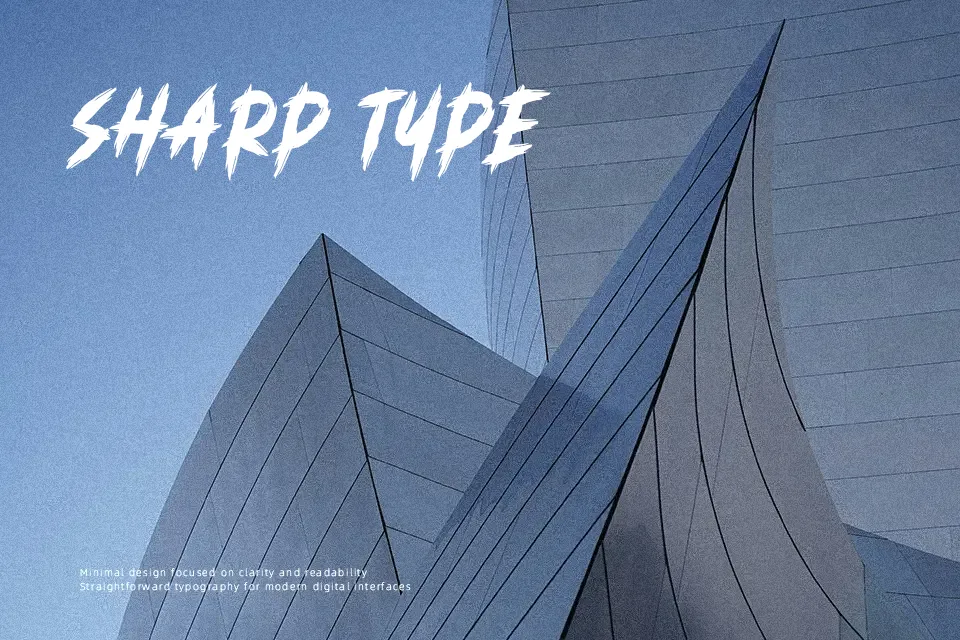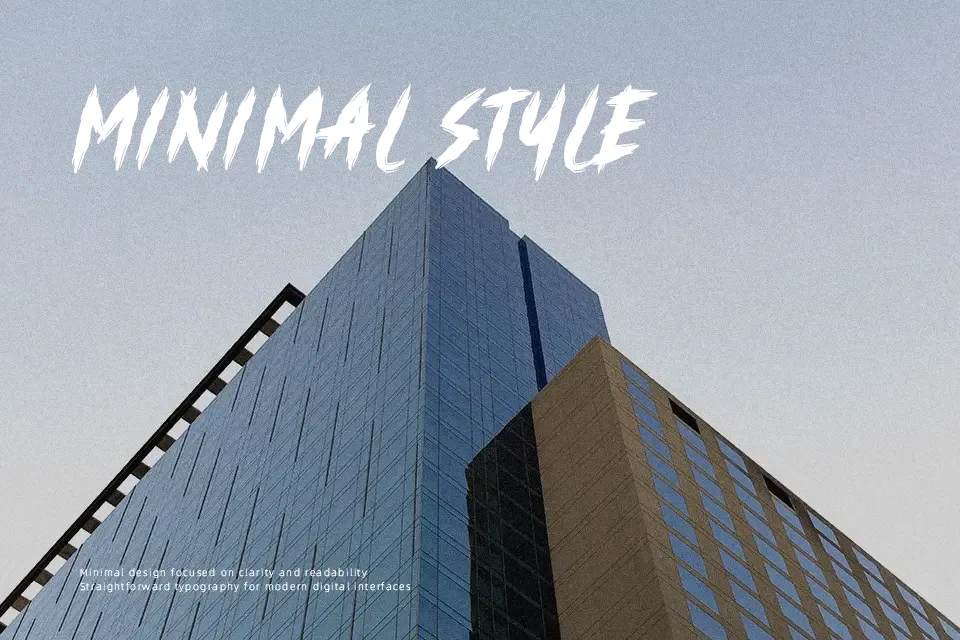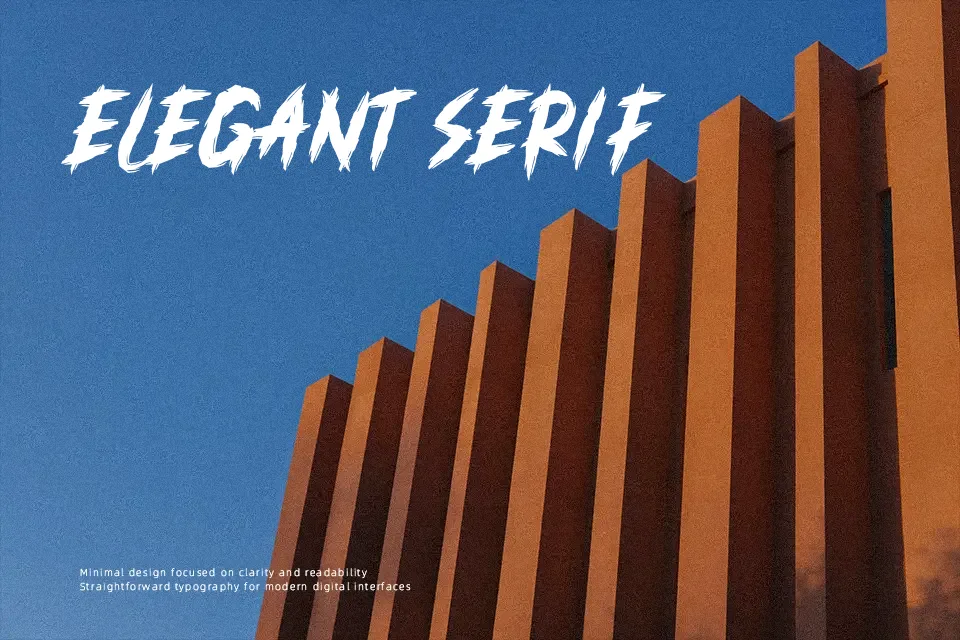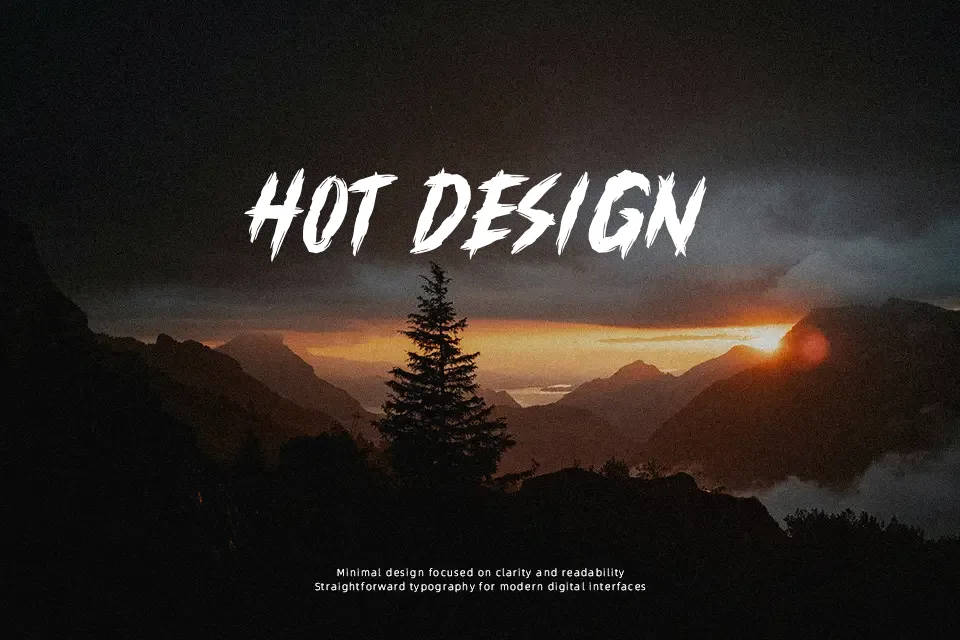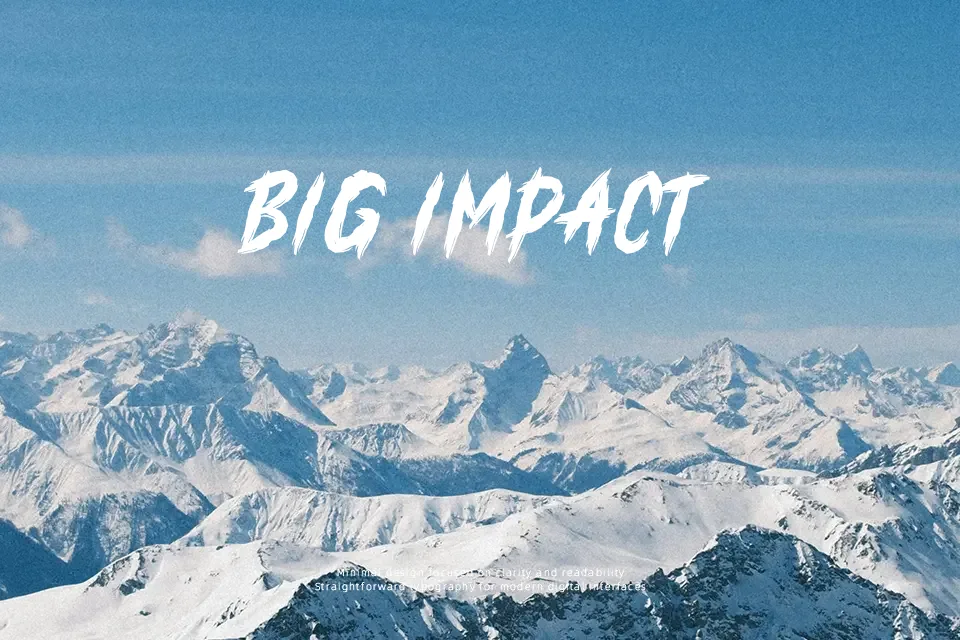
Rusty Attack Font
Rusty Attack Font is an aggressive, textured brush typeface that immediately draws attention with its raw, irregular strokes. The letterforms exhibit a distressed, uneven edge that mimics the appearance of rapid, heavy brush application on a rough surface. Spacing is relatively tight, emphasizing the chaotic and energetic rhythm of the characters across the baseline. The bold strokes improve visibility in posters and large-scale applications, making it highly effective for intense, dramatic designs like music merchandise or thriller movie titles. However, the heavy texture and unpredictable forms create significant readability issues at smaller sizes. Dense forms reduce comfort during extended reading, meaning this design should be reserved strictly for short, impactful display settings.
horror movie posters
heavy metal band merchandise
extreme sports apparel
haunted house promotional flyers
corporate business reports
Perfect for film, headline, and packaging, with a dramatic and brush style.